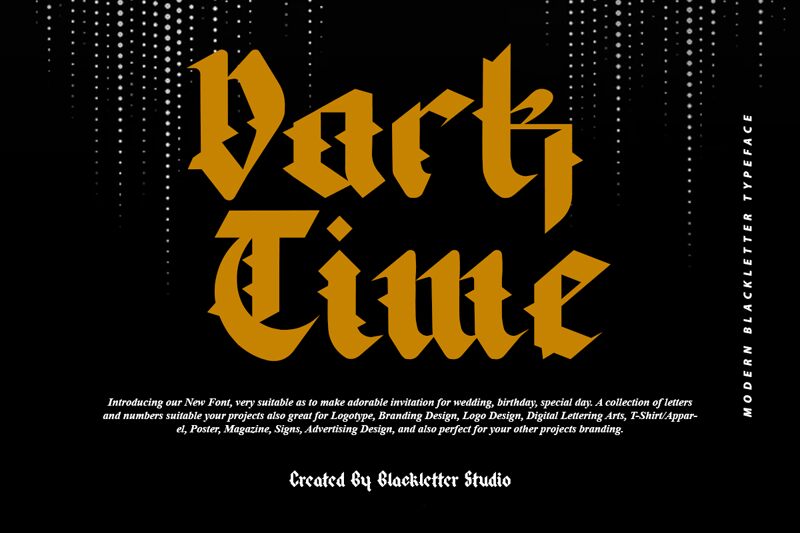
Dark Time is a bold, modern gothic font designed by Blackletter Studio. This typeface has a unique, eye-catching style that will add an edgy vibe to any project. Whether you're designing a logo, creating an invitation, or illustrating a book cover, Dark Time will give your project the perfect blend of style and sophistication. It's perfect for creating an urban and contemporary atmosphere.